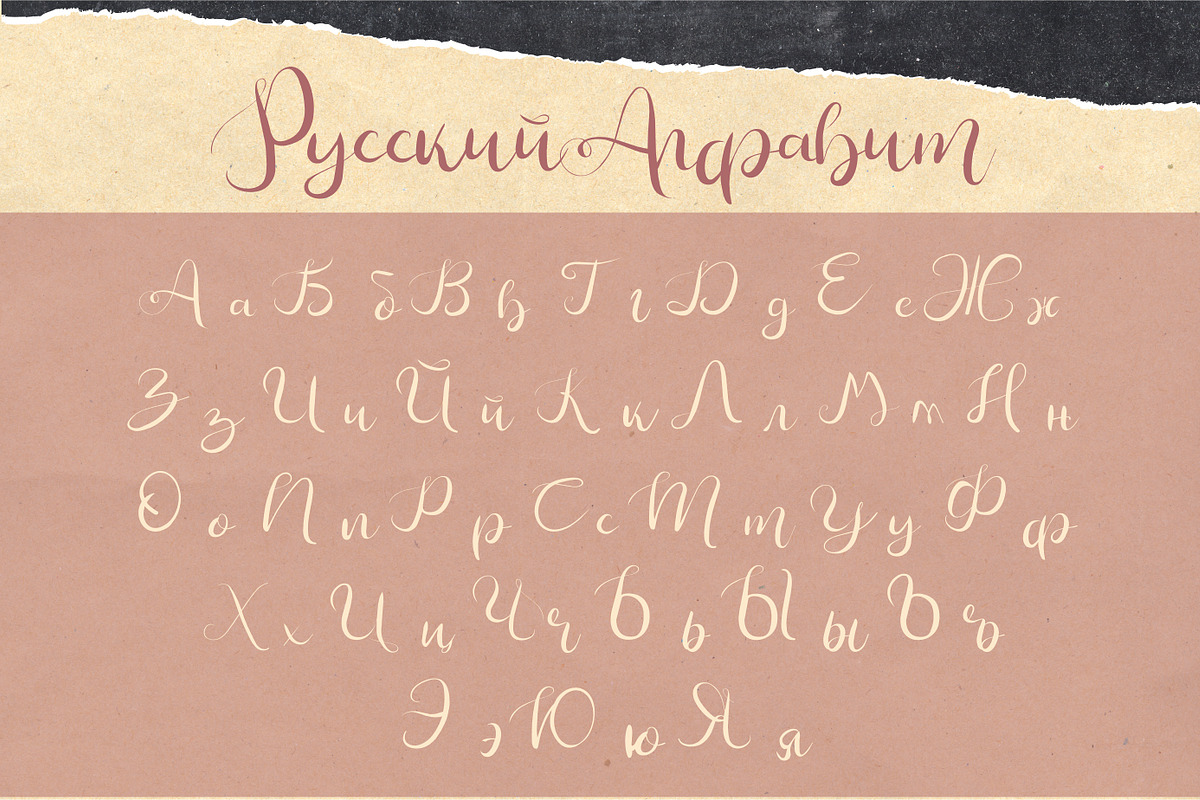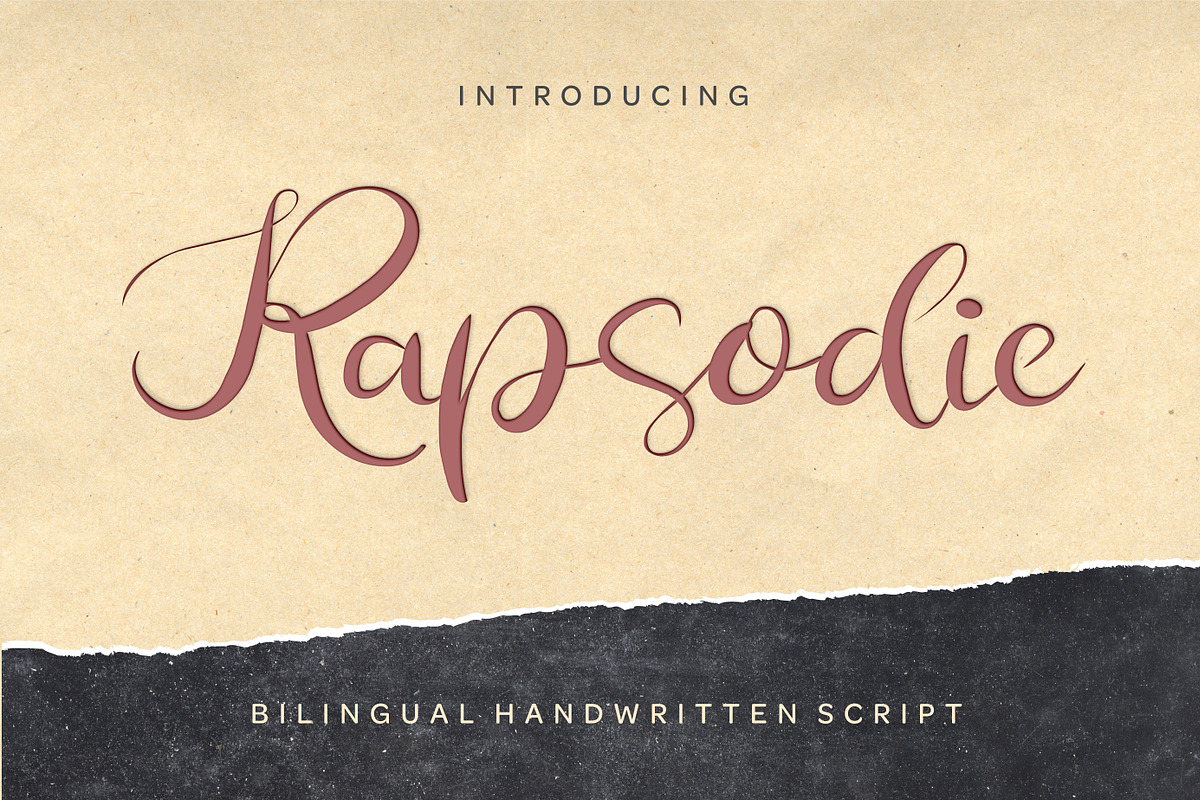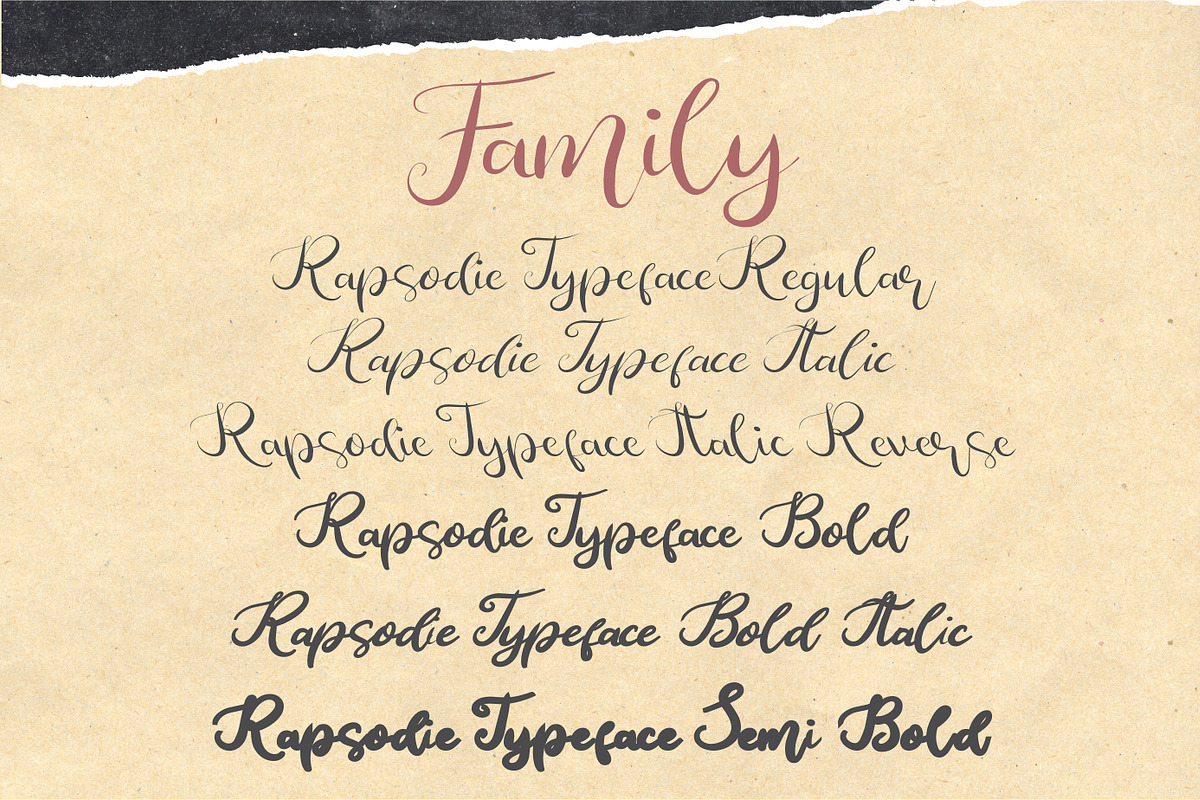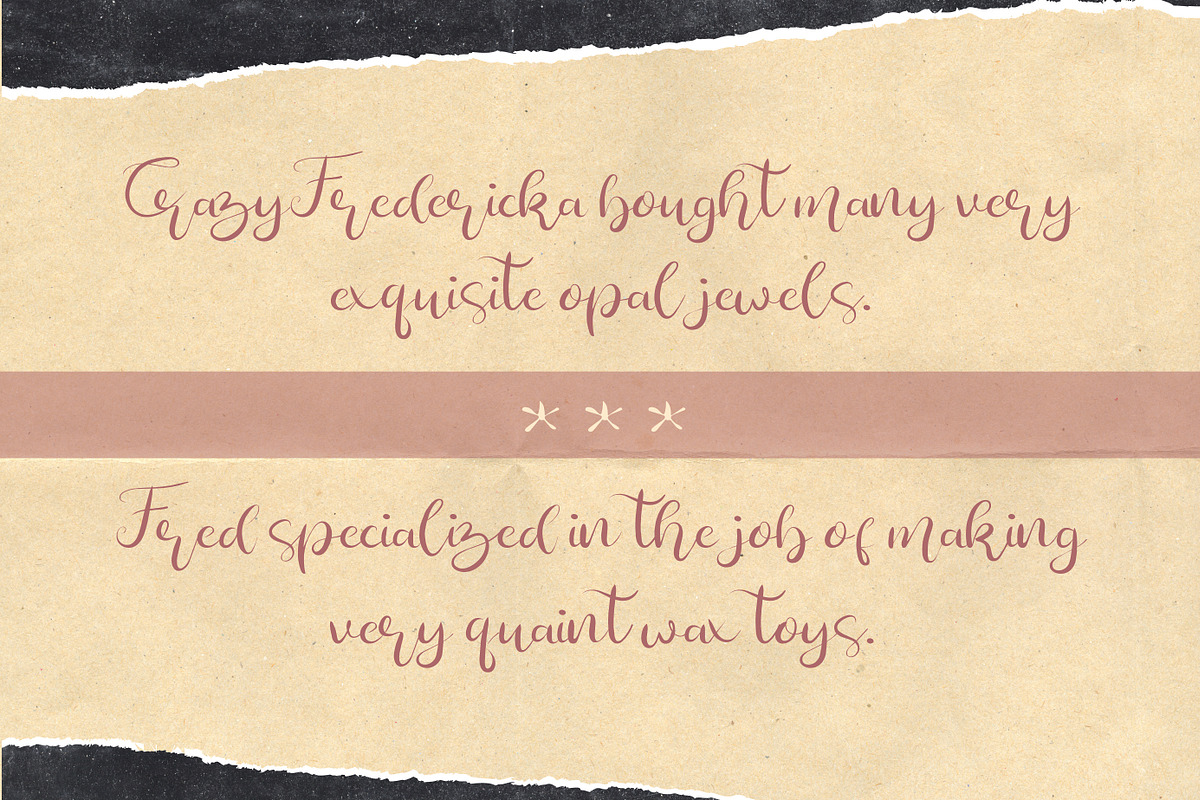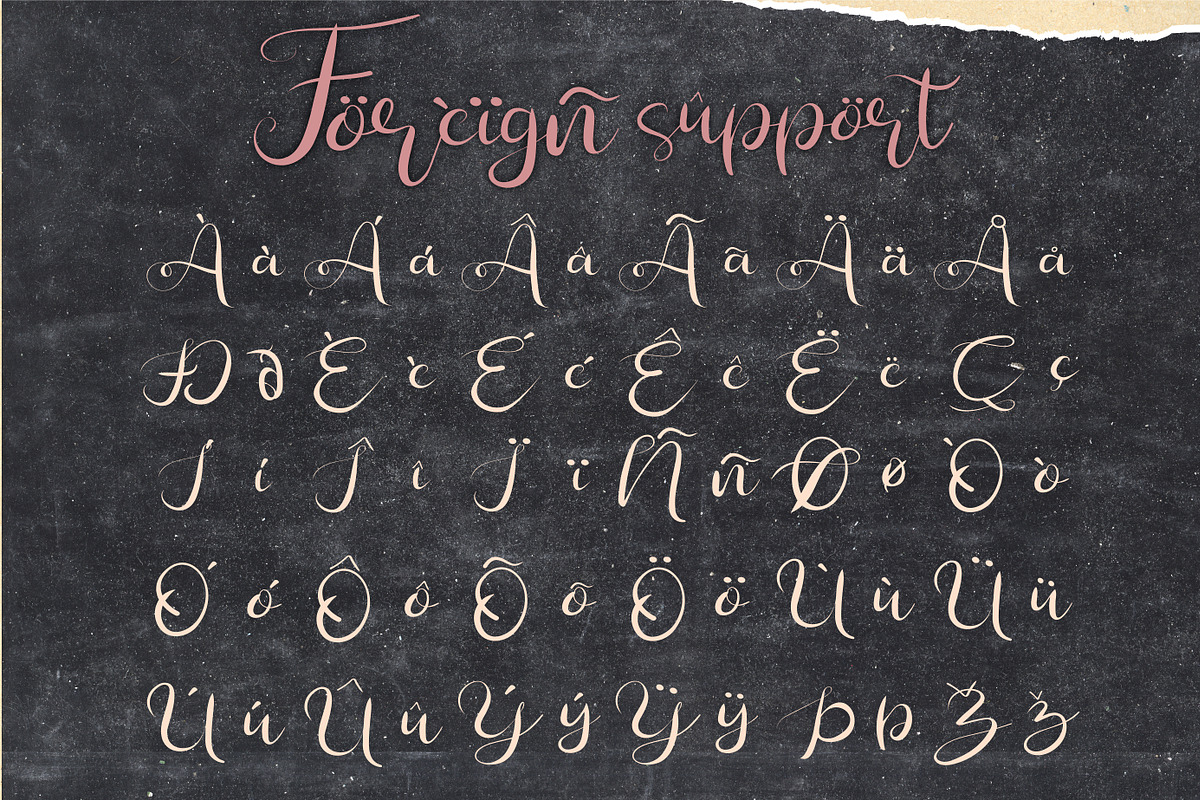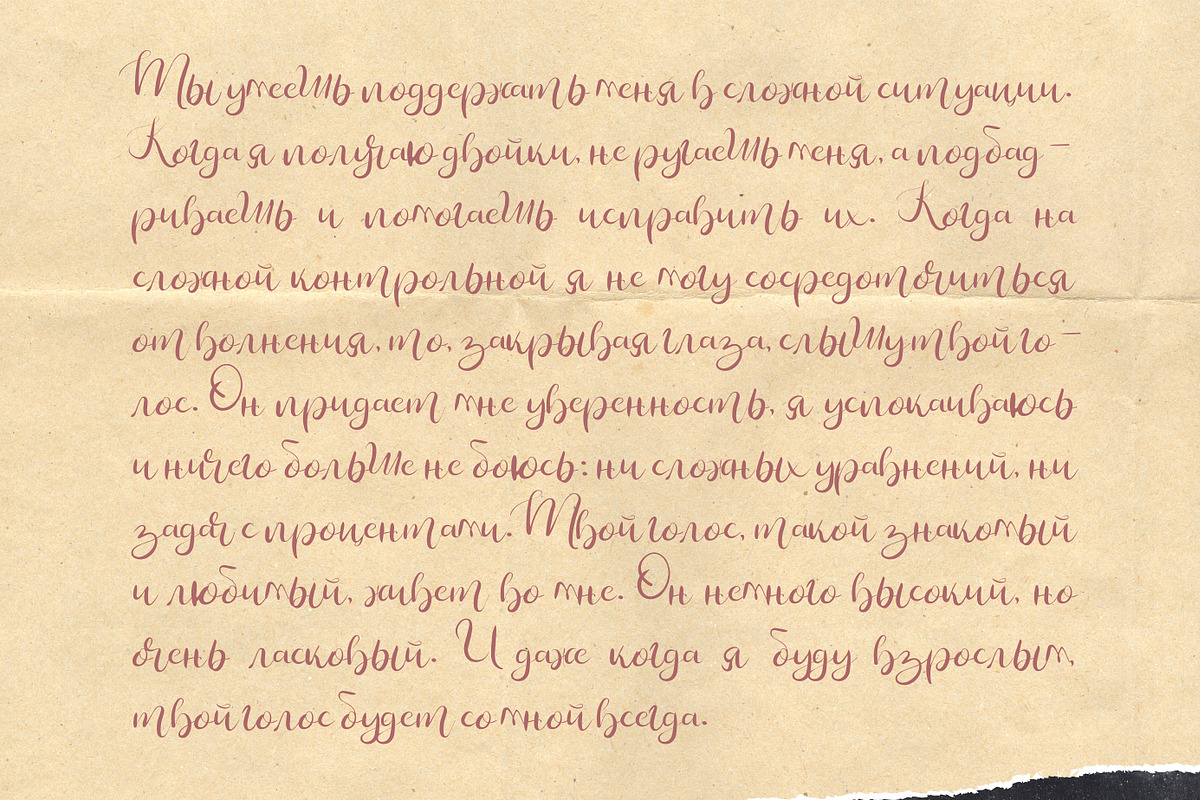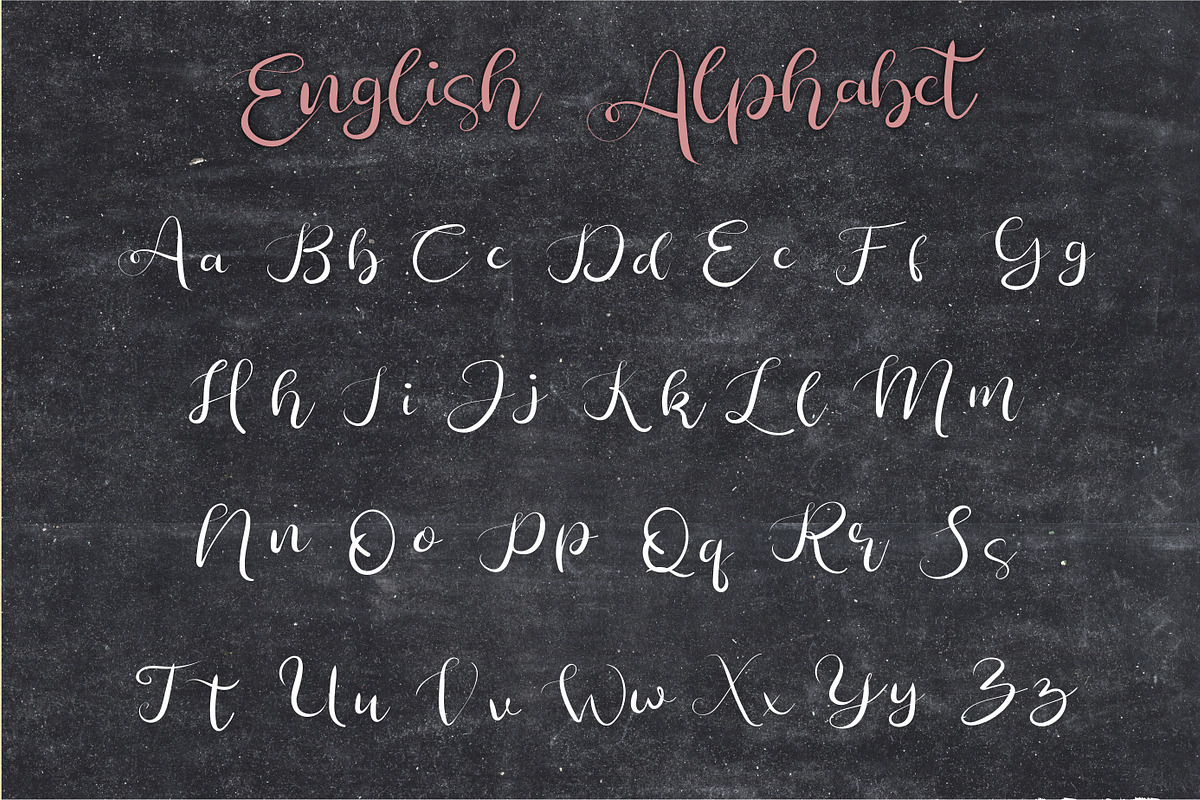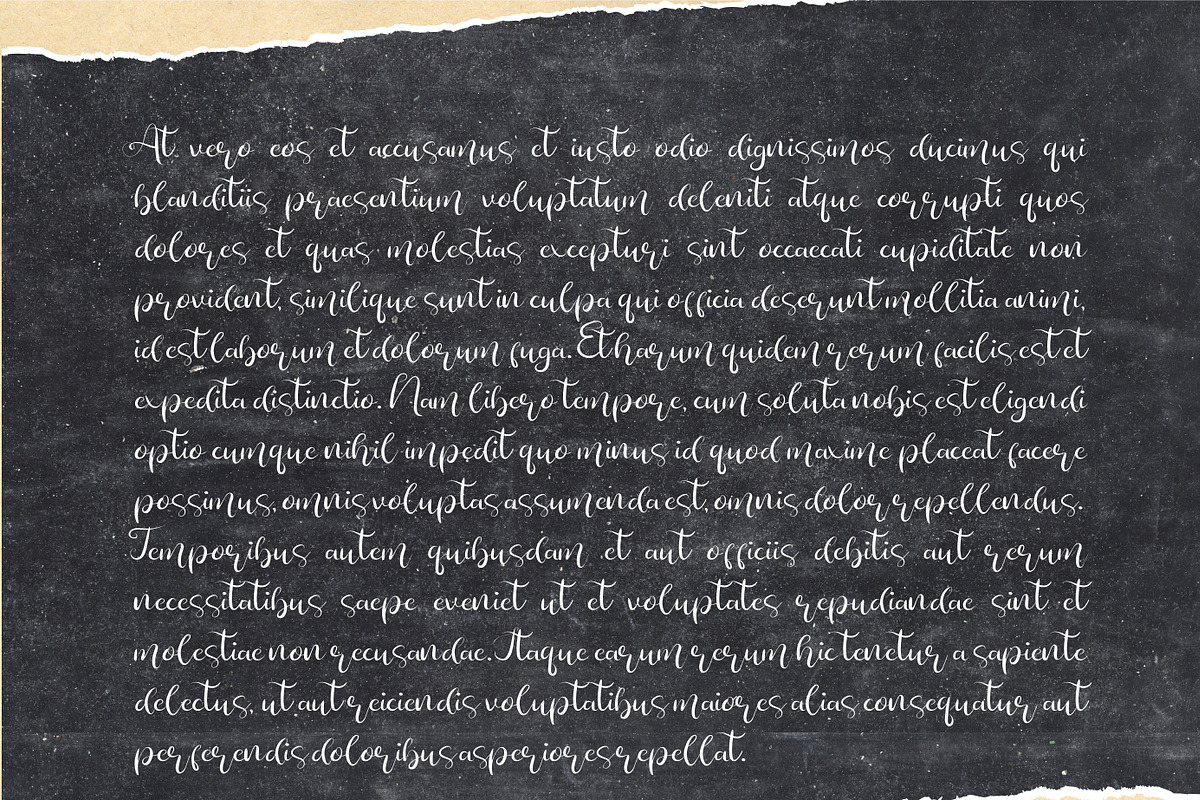
Rapsodie - Multilingual Script
Rapsodie - Multilingual Script With English and Russian Letters
Rapsodie is new and attractive script prepared and constructed by hand. It has 300 symbols with English and Russian letters, numeric symbols and punctuation, multilanguage support, and extended list of advanced ligatures and more.
English Small Letters
Russian Small Letters
Multi-language Letters
Caps Letters Ligatures
Small Letters Ligatures
Access the ligatures to enhance you writing capability and to modify your simple design with an excellent looking attractive glyphs, letters, ligatures and fancy calligraphic tricks.